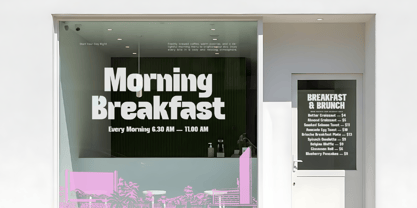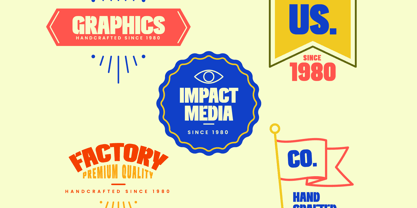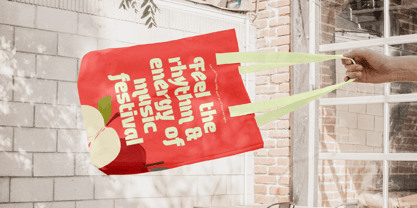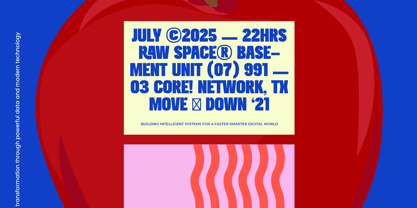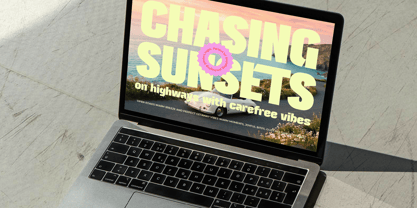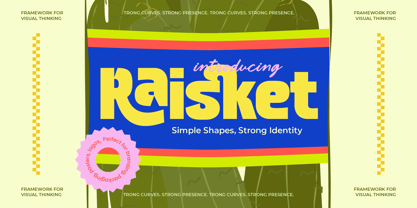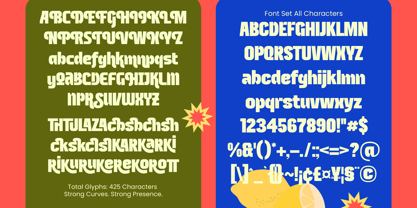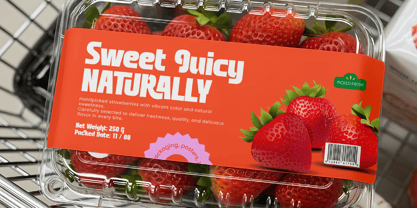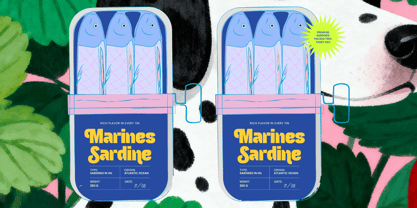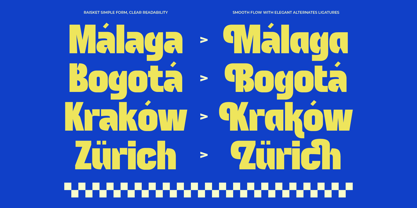
Raisket
La familia tipográfica Raisket fue diseñada por Heru Utama Putra y publicada por Timelesstype Studio. Raisket contiene 2 estilos y opciones de paquete familiar. Más información sobre esta familia
Elevate your design identity with a typeface that commands attention through its unique blend of approachability and strength. Raisket – Bold Rounded Sans Serif is a masterfully crafted typeface that balances soft, friendly curves with a powerful bold presence. This font is designed to provide high legibility and a contemporary aesthetic, ensuring your headlines and branding elements stand out with a modern, playful edge that resonates with diverse audiences. Redefine your brand’s visual narrative through unparalleled versatility and striking visual impact. This typeface is the perfect choice for packaging, lifestyle branding, and editorial layouts that require a touch of personality without sacrificing professionalism. Whether you are crafting vibrant logo designs, bold posters, or creative social media assets, Raisket – Bold Rounded Sans Serif provides the essential typographic foundation needed to transform ordinary projects into extraordinary visual experiences.